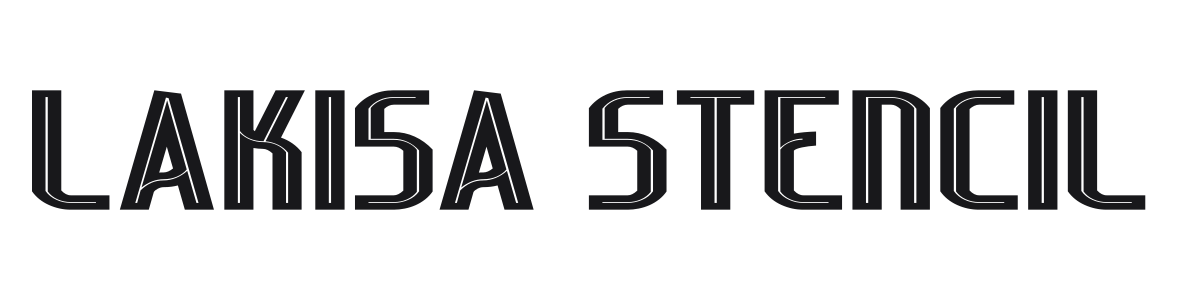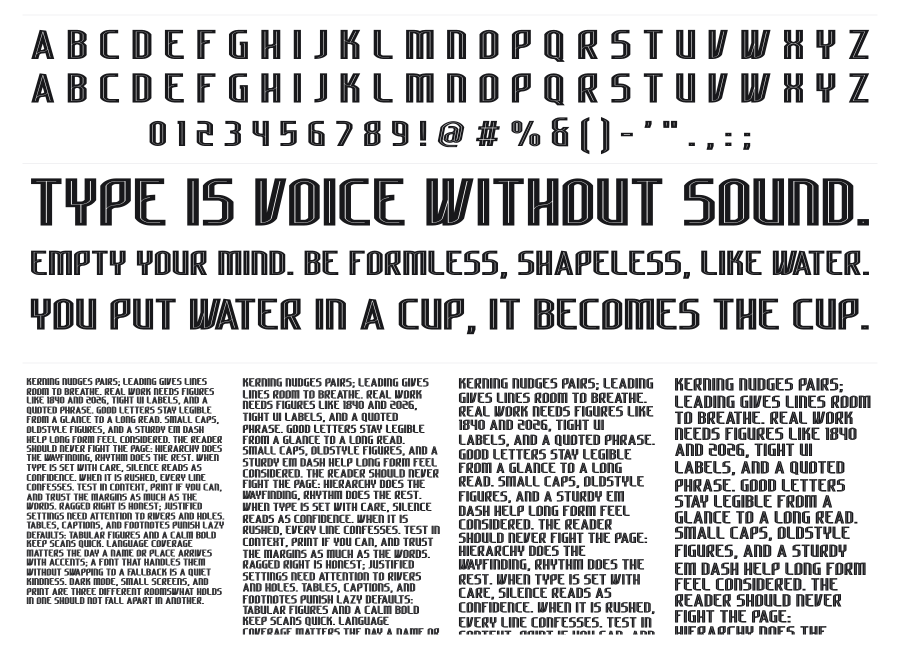
Lakisa Stencil
Lakisa Stencil is a bold condensed sans with a striking inline double-stroke cut through every character. The stencil treatment gives it a futuristic, almost engineered quality that sits between Art Deco geometry and contemporary industrial design. It commands attention at large sizes and reads clearly as a headline or logotype.